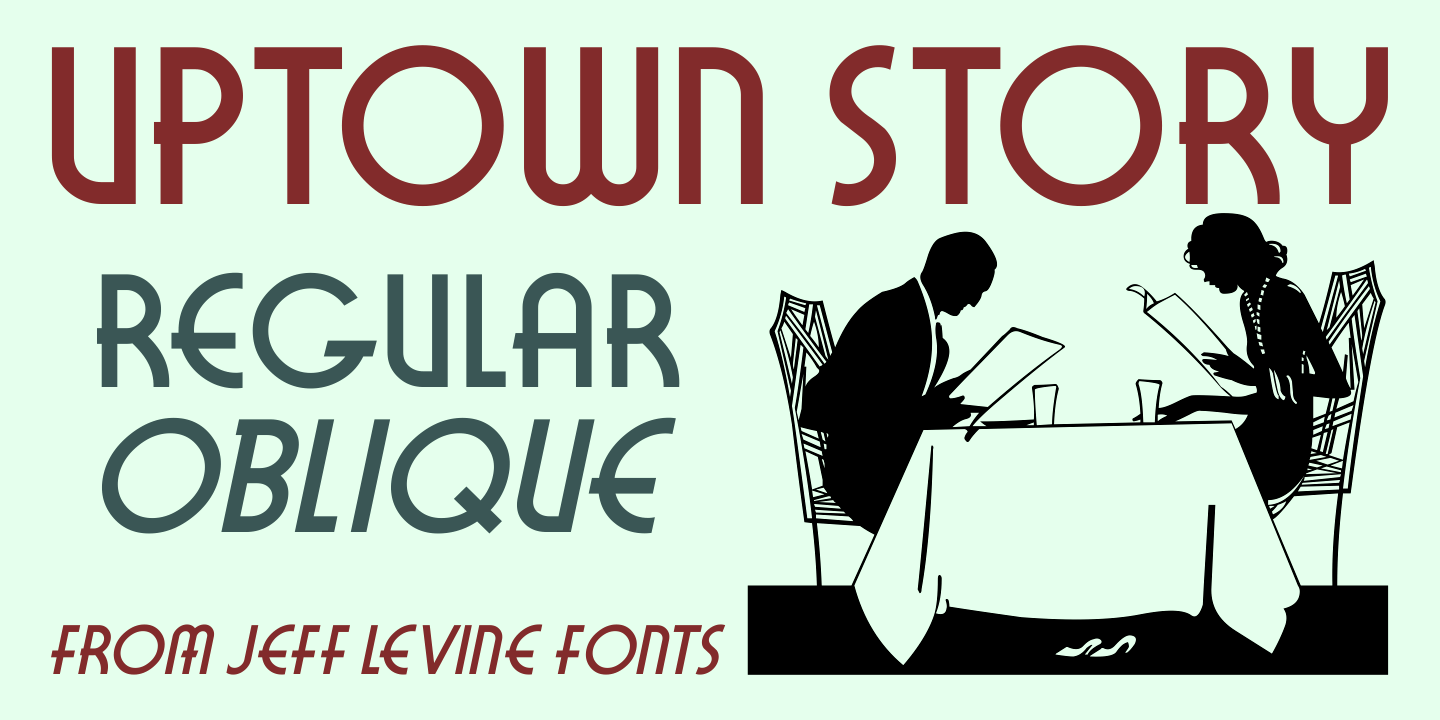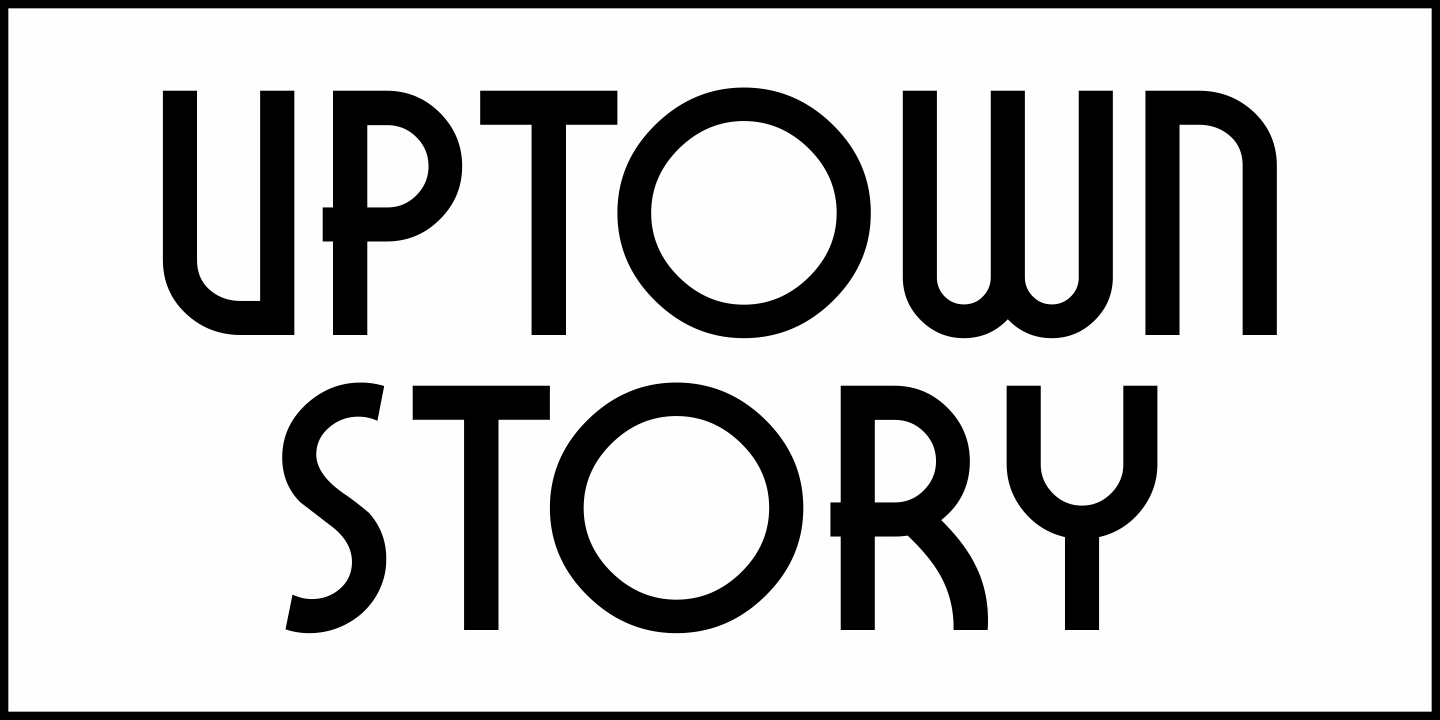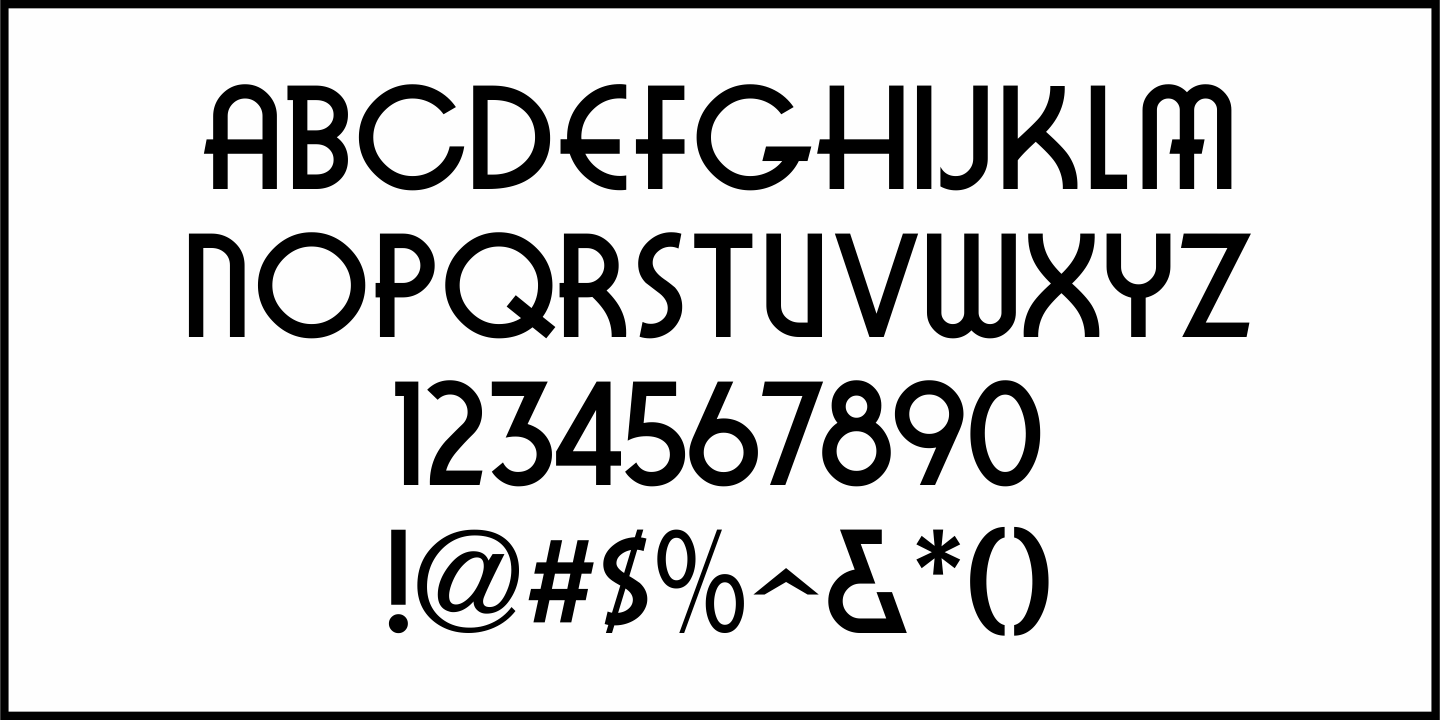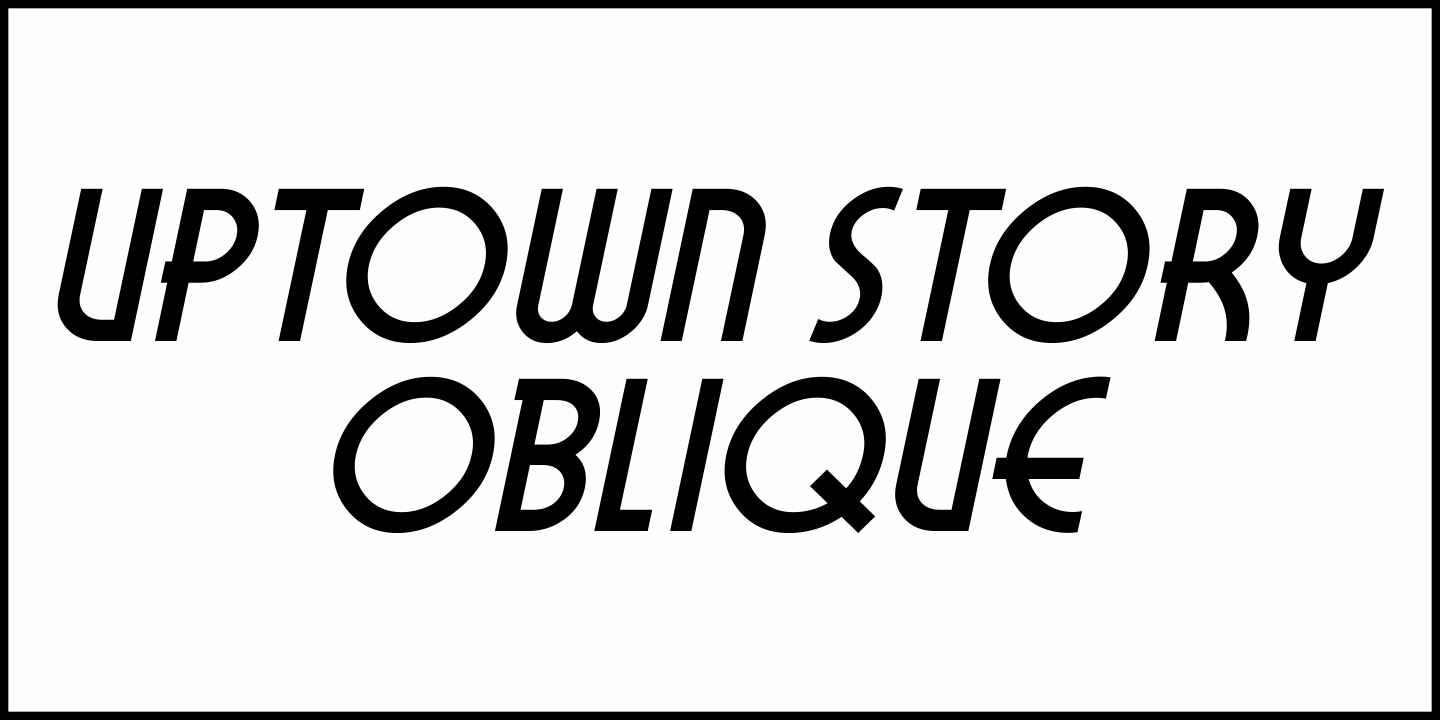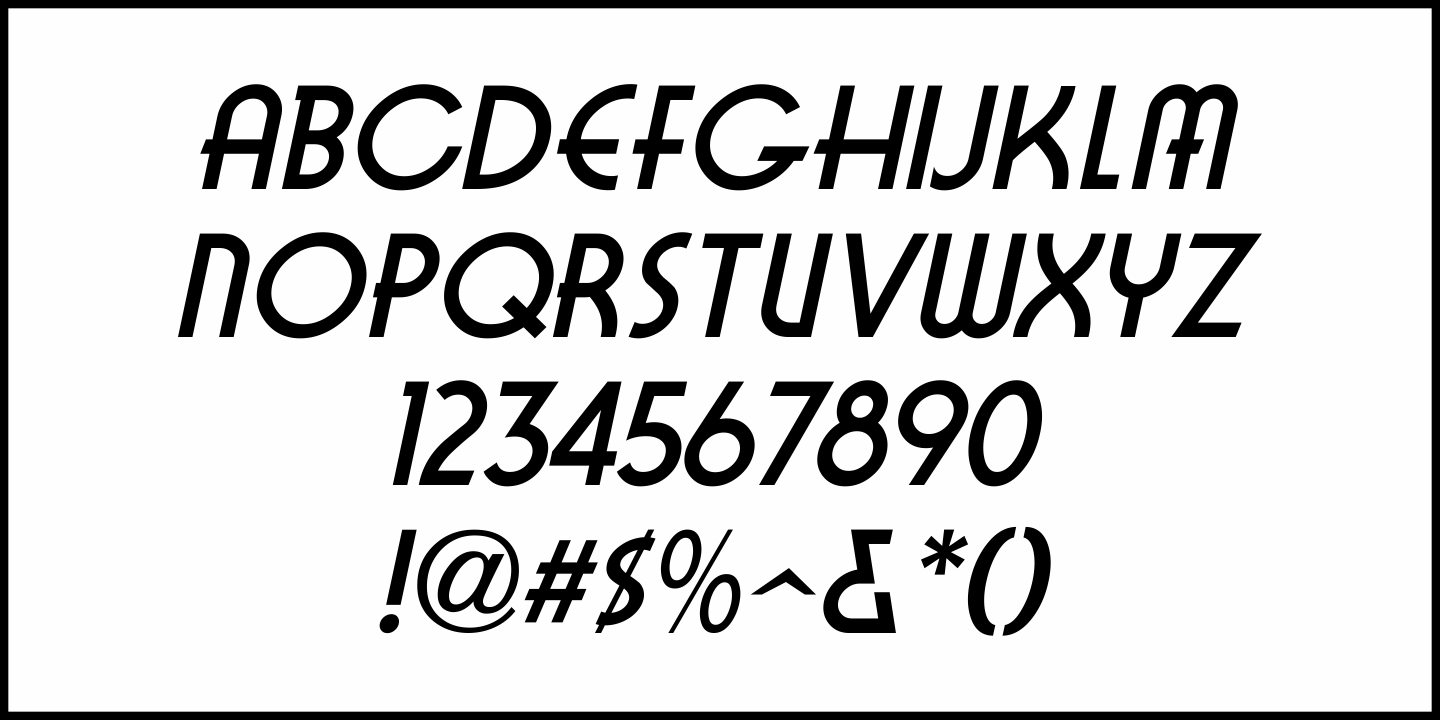
Uptown Story
In the April 18, 1931 edition of The Motion Picture Herald is an ad from Paramount Pictures promoting their latest releases at the time. The main word copy is done in an Art Deco sans serif style.
This hand lettering is now available as Uptown Story JNL, in both regular and oblique versions.